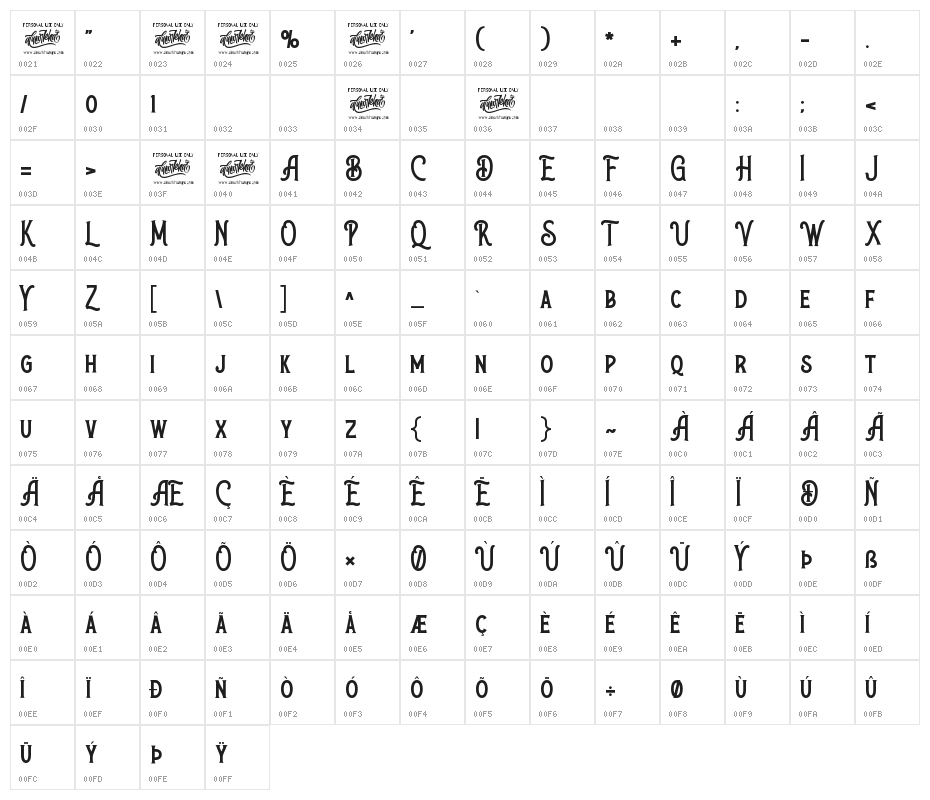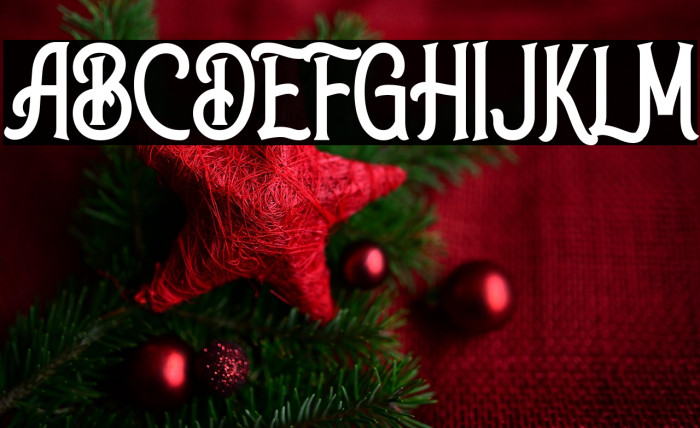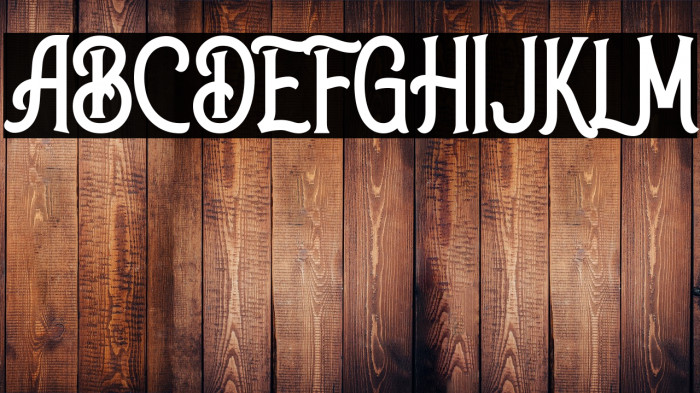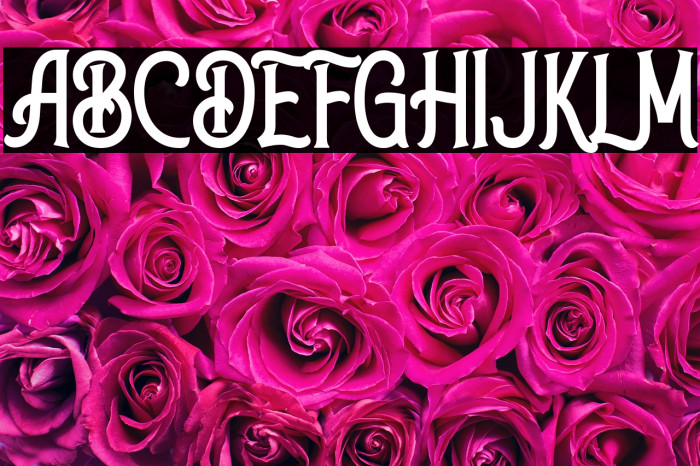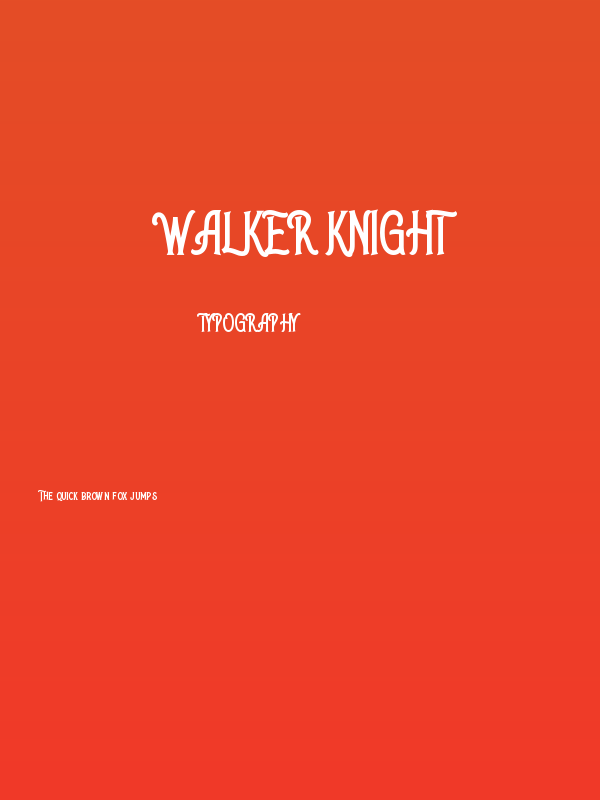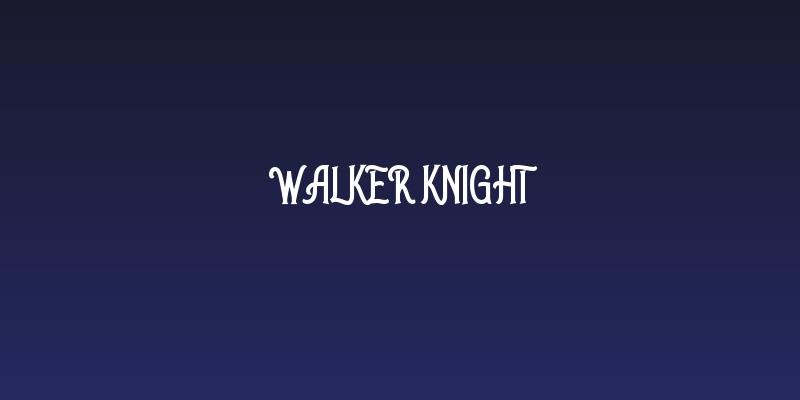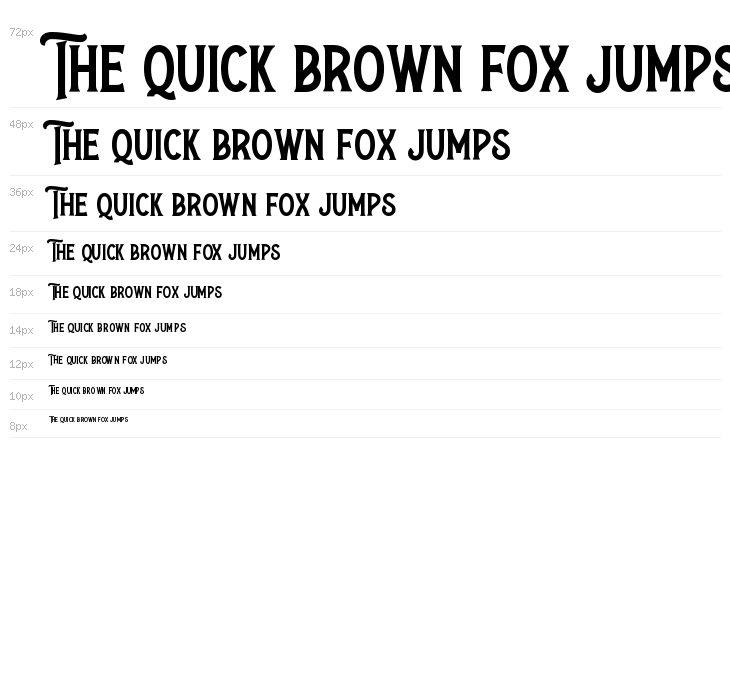
Walker Knight Font
Walker Knight Description
This font features a bold and decorative style with a unique flair in its uppercase letters, characterized by intricate curves and flourishes. The lowercase letters maintain a more straightforward design, providing a balanced contrast. The numerals are bold and consistent with the overall style, while the special characters add a touch of elegance and creativity. This font is suitable for projects that require a distinctive and artistic touch, making it ideal for branding, posters, and creative designs.
| Proposed Projects | Ideal for branding, posters, creative designs, and any project needing a distinctive artistic touch. |